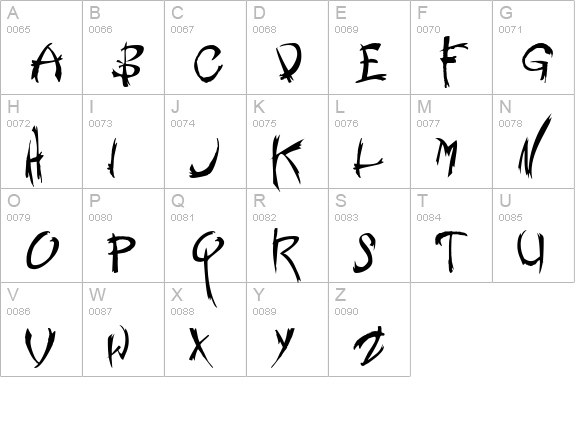
Nemesis Shareware font is a stunning display typeface that exudes a sense of power and sophistication. With its bold lines and intricate details, this font is perfect for making a statement in your designs. Whether you're creating a logo, poster, or website, Nemesis Shareware font will elevate your project to the next level. The best part is that Nemesis Shareware font is available for free download at FontsMarket.com. This means you can easily add this unique and eye-catching font to your collection without any cost. Don't miss out on the opportunity to enhance your designs with Nemesis Shareware font today!